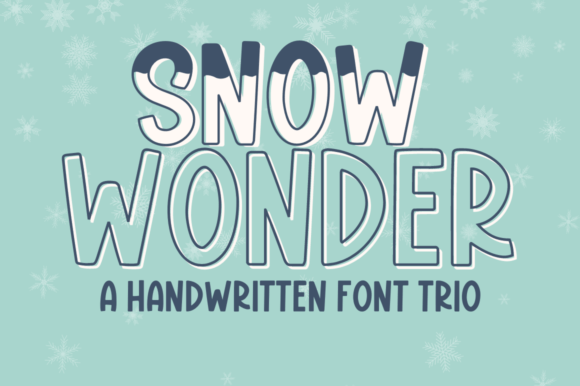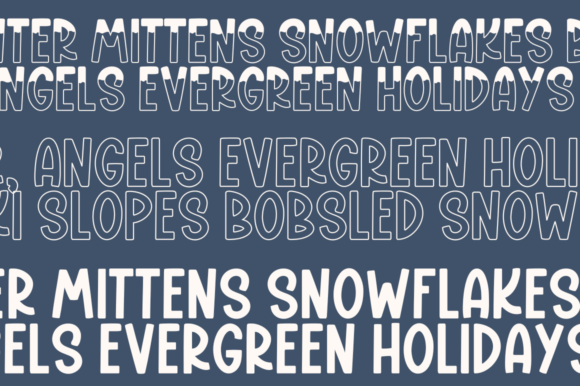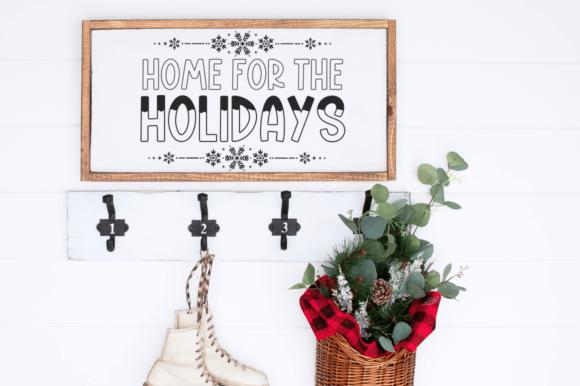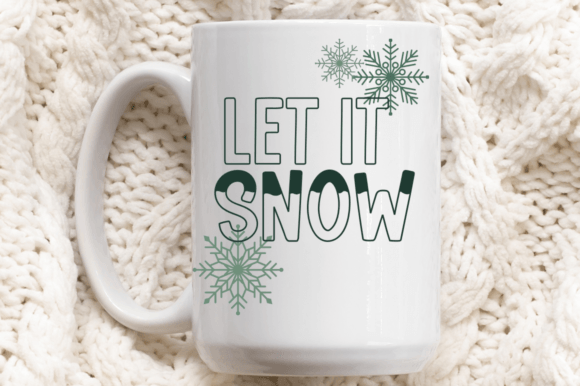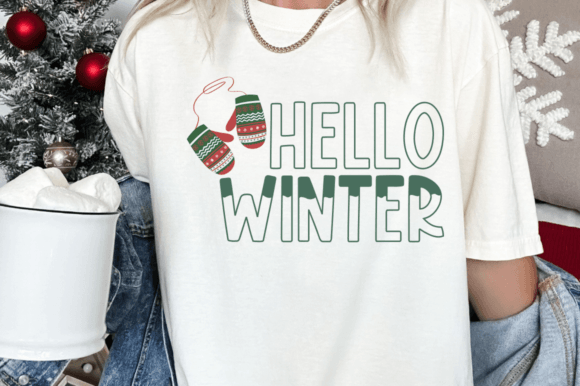
Snow Wonder Trio Font
Snow Wonder is a handwritten font trio featuring a snowy font, an outline font, and a solid handwritten font – charming additions to your creative projects! Our handwriting font is compatible with Cricut SVGs, Goodnotes, Procreate, and many other programs. With its playful and fun handwriting style, it adds a touch of whimsy and personality to any project. Whether you’re crafting Christmas cards, scrapbooking, or designing SVG files, this cute holiday font will bring your creations to life. Get ready to impress with our amazing Cricut font collection and unlock endless possibilities for your artistic endeavors!